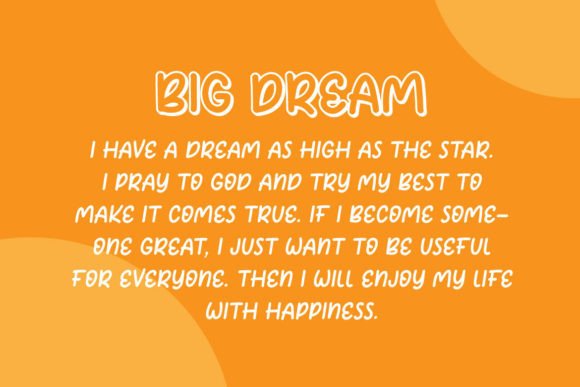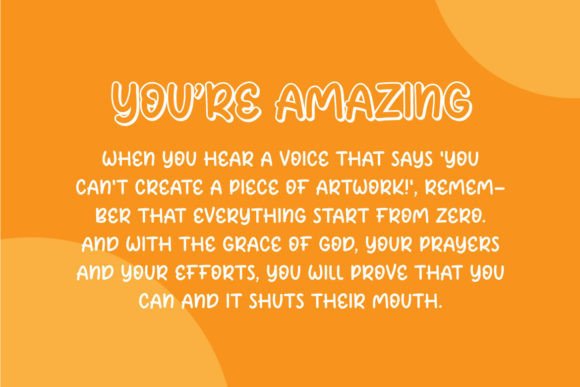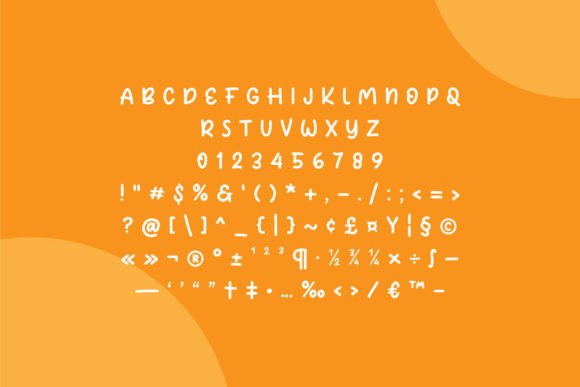
Discover the Playful Charm of Brinx Font: Elevate Your Designs with a Simple yet Impactful Typeface
In the world of typography, fonts play a crucial role in conveying messages, evoking emotions, and setting the tone for various design projects. For designers, crafters, and creative enthusiasts, finding the right font can be a daunting task. However, if you’re looking for a simple yet playful comic font that can add a touch of whimsy to your work, look no further than Brinx Font, also affectionately known as **Brink**. This versatile typeface is designed to bring a sense of fun and approachability to a wide range of projects, from storybooks and comic books to school materials, flyers, book titles, advertisements, social media content, logos, and beyond.
The Characteristics of Brinx Font
Brinx Font, or **Brink**, is characterized by its clean, simple, and playful design. Its comic font style is not just eye-catching but also highly legible, making it an excellent choice for both digital and print projects. The font’s design ensures that it remains clear and readable even at smaller sizes, which is a significant advantage for designers working on projects that require versatility in font sizing.
One of the standout features of **Brink** is its incredible versatility. This font can seamlessly transition across various mediums and applications. Here are some of the many ways you can use Brinx Font:
- Storybooks and Comic Books: Add a playful and engaging touch to your children’s storybooks or comic books, making them more appealing to young readers.
- School Projects: Whether it’s a project presentation, a school newsletter, or educational materials, **Brink** can add a fun and lively feel.
- Flyers and Posters: Create eye-catching flyers and posters for events, promotions, or informational campaigns that stand out.
- Book Titles and Covers: Use **Brink** for book titles to give your publication a unique and captivating look.
- Advertisements: Incorporate this playful font into your ad designs to convey a friendly and approachable brand tone.
- Social Media Content: Elevate your social media posts, stories, and banners with a dash of playfulness and creativity.
- Logos: For brands looking to convey a sense of fun, youthfulness, and approachability, **Brink** can be a great choice for logo design.
Why Choose Brinx Font?
Choosing **Brink** for your design projects comes with several benefits:
- Uniqueness: Stand out from the crowd with a font that is both simple and uniquely playful.
- Legibility: Ensure your message is conveyed clearly and effectively, regardless of the medium.
- Versatility: Use **Brink** across a wide range of projects without worrying about it looking out of place.
- Emotional Connection: Create a friendly and approachable tone that resonates with your audience.
Tips for Using Brinx Font Effectively
To get the most out of **Brink**, consider the following tips:
- Mix and Match: Combine **Brink** with other fonts for a layered look that adds depth to your design.
- Play with Sizes: Experiment with different font sizes to create visual interest and hierarchy in your designs.
- Color Matters: Choose colors that complement the playful nature of **Brink** and align with your brand or project’s tone.
Brinx Font, or **Brink**, is more than just a simple playful comic font. It’s a versatile typeface that can bring a unique blend of fun, approachability, and clarity to a wide array of design projects. Whether you’re a designer, crafter, or simply a creative enthusiast, **Brink** offers the perfect combination of style and functionality to elevate your work. So, why settle for ordinary when you can add a touch of playfulness with **Brink**? Explore the possibilities and let your creativity shine with Brinx Font.